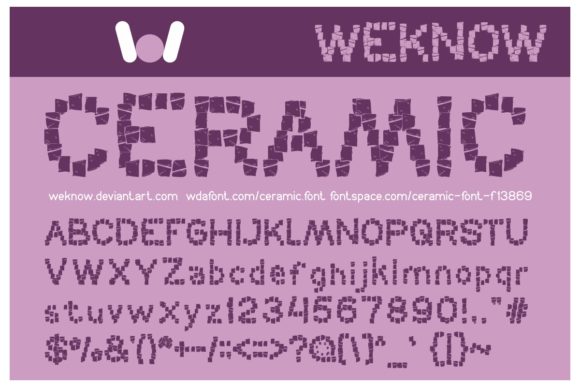
Ceramic Font
Experience the captivating charm of Ceramic Font, a display typeface that dances across your designs with playful elegance. Its meticulously crafted characters evoke a sense of whimsical wonder, ready to transform your creations into visual masterpieces.
Unleash your imagination and let Ceramic Font guide you through a realm of creative possibilities. Its distinctive style effortlessly adds a touch of enchantment to any project, from enchanting invitations to captivating posters. Allow its graceful curves and cheerful spirit to ignite your inspiration and leave a lasting impression.
With Ceramic Font, the mundane becomes extraordinary. Its carefully balanced strokes and charming accents invite you to embrace the beauty of imperfection. It's a font that celebrates the joy of individuality, inviting you to create designs that are as unique as your imagination.
Whether you're crafting enchanting branding, captivating social media posts, or simply adding a touch of whimsy to your digital creations, Ceramic Font is your perfect companion. Its versatility knows no bounds, adapting seamlessly to whatever vision you may have.